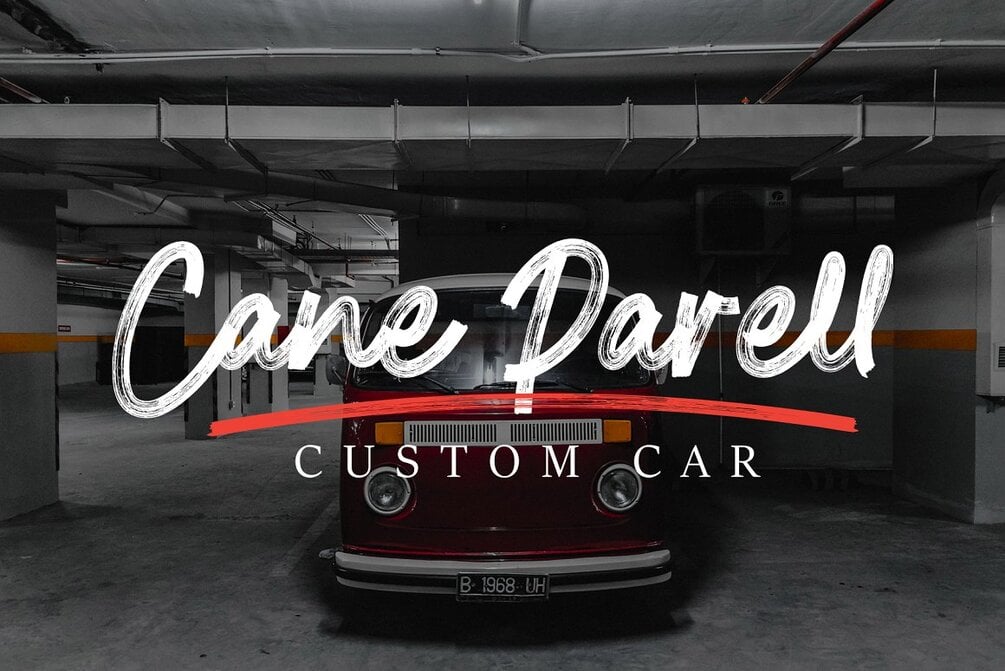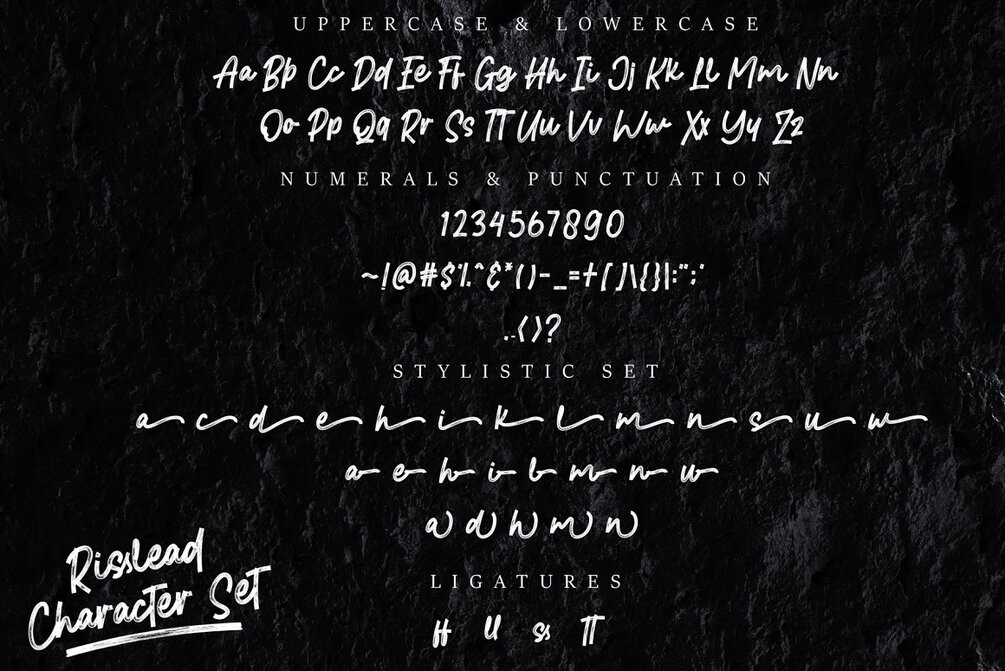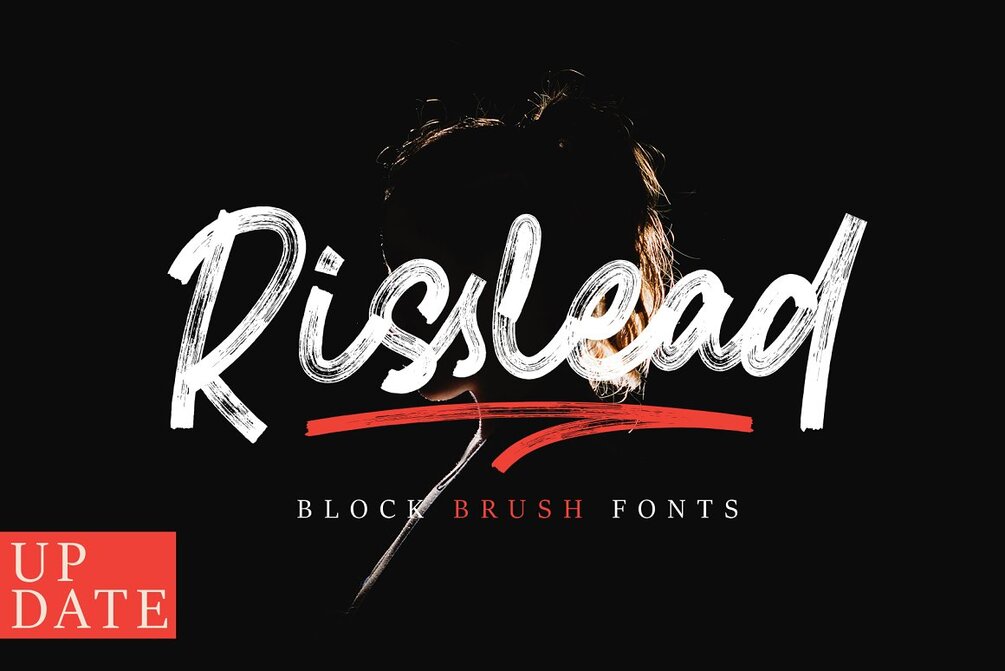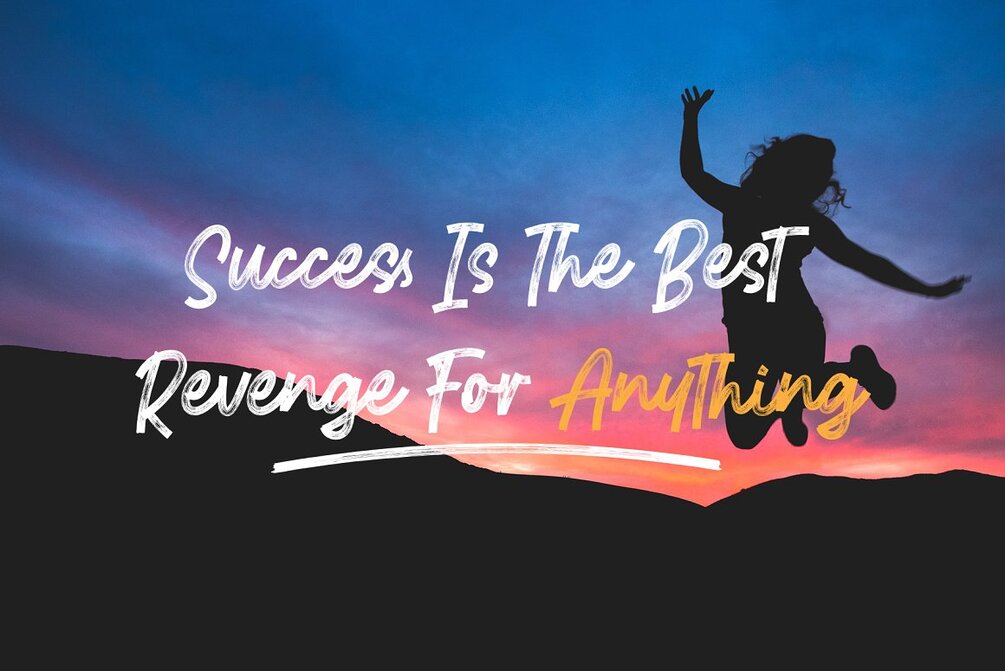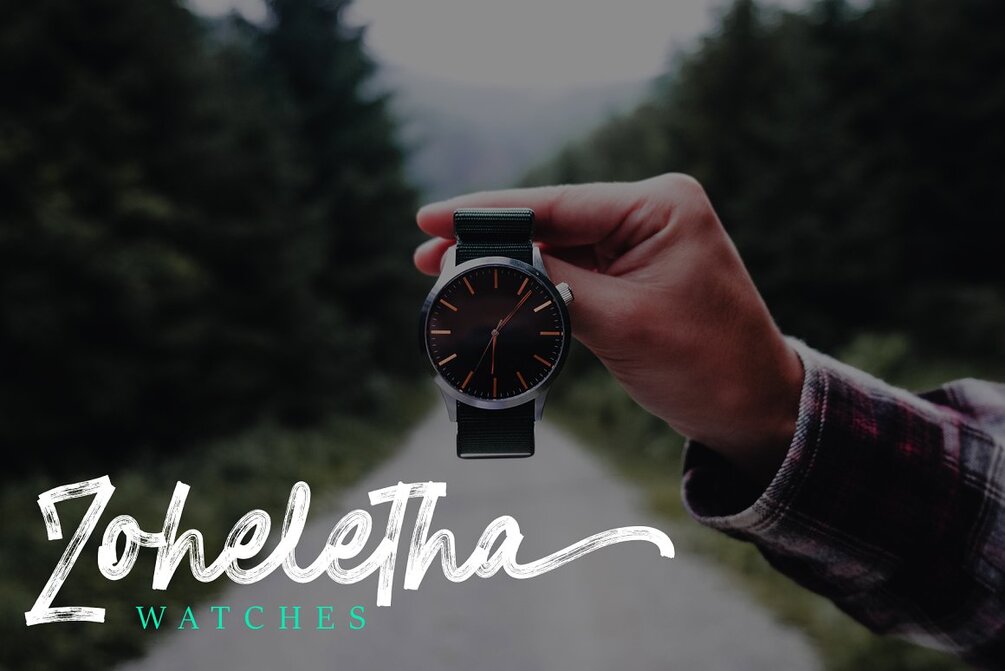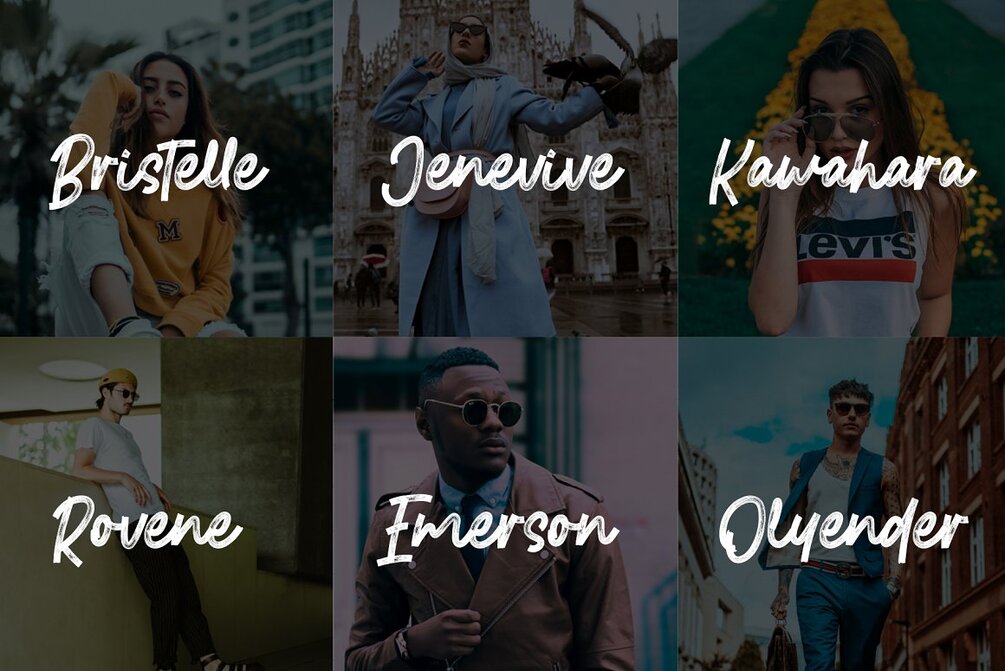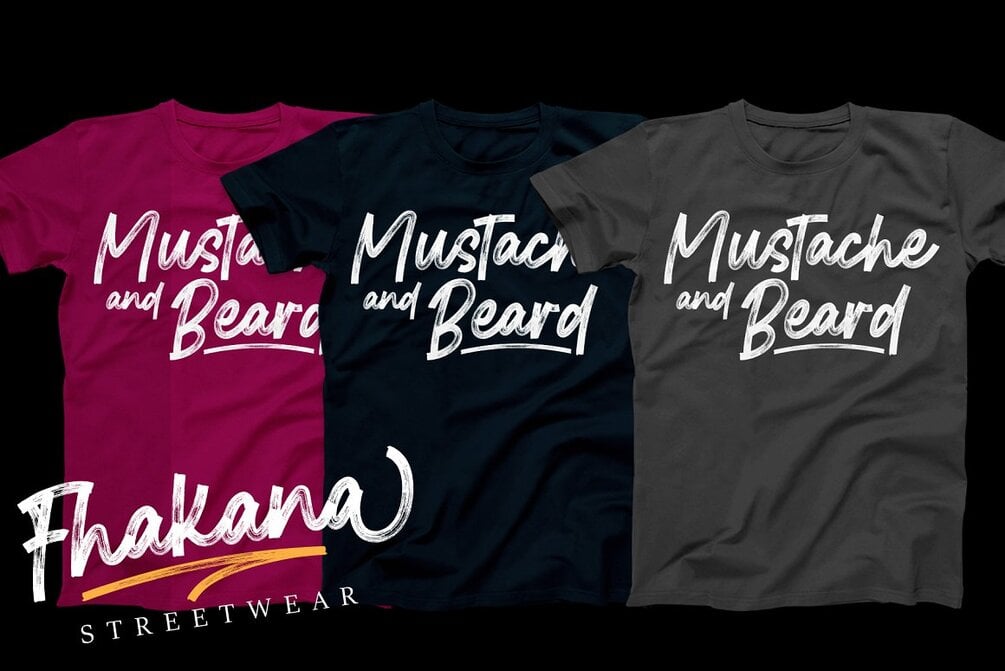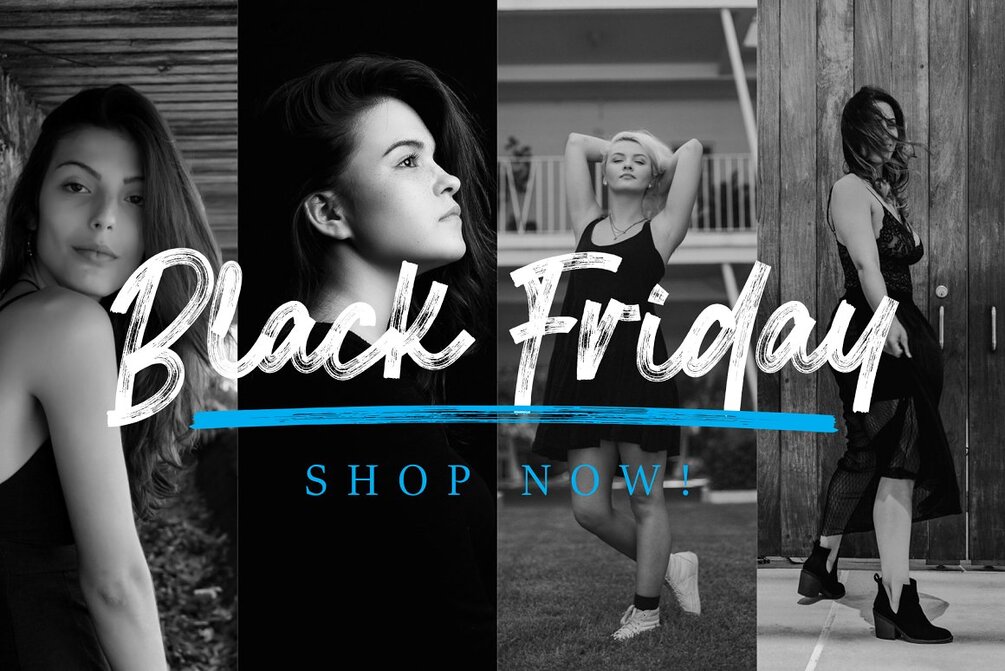
Risslead - Block Brush Fonts
Risslead is a block brush.
madeby winsor brush. feel the strong brush fonts!
• Uppercase
• Lowercase
• Numerals
• Symbols
• European Multilingual
• Stylistic Set 1
• Standart Ligature